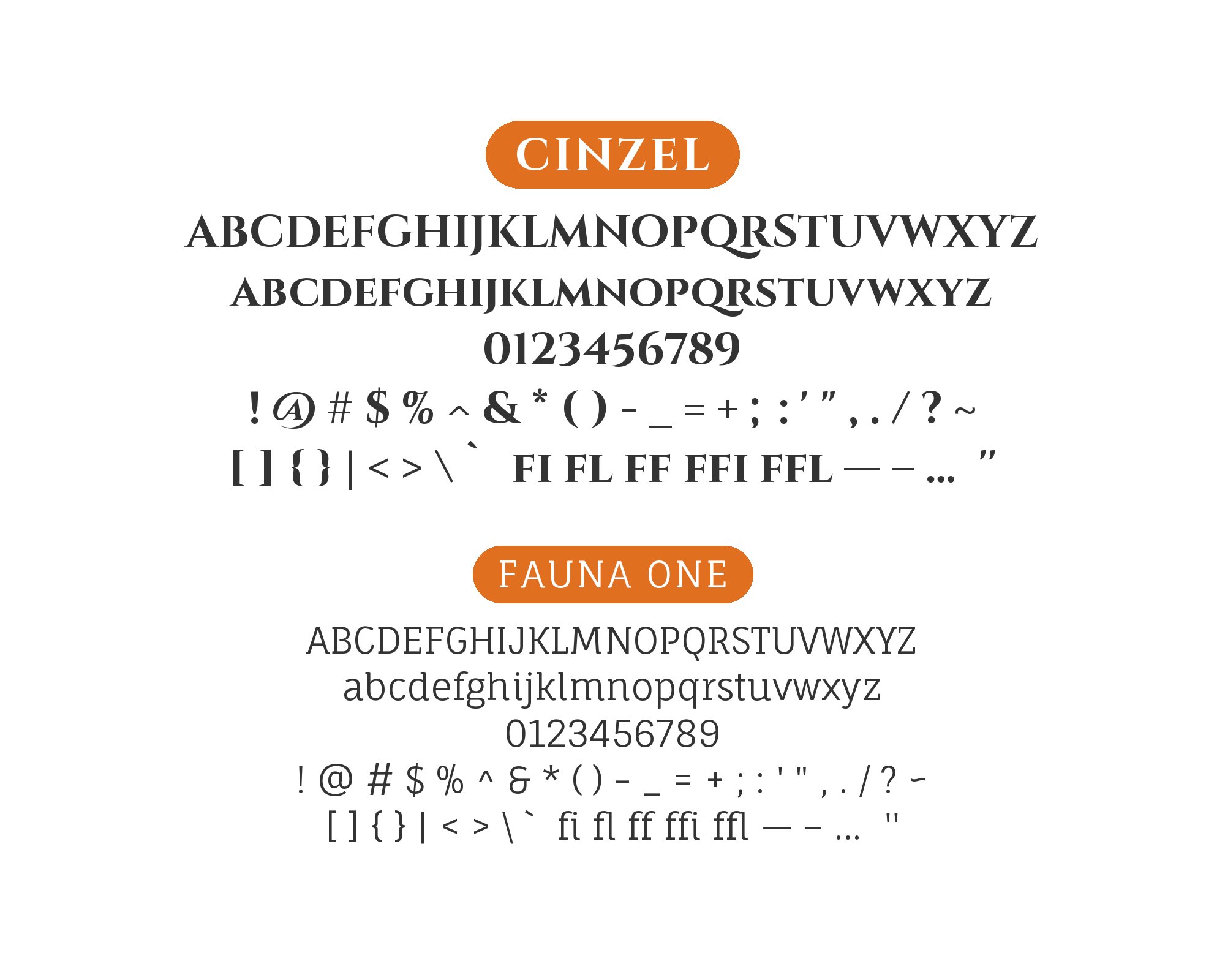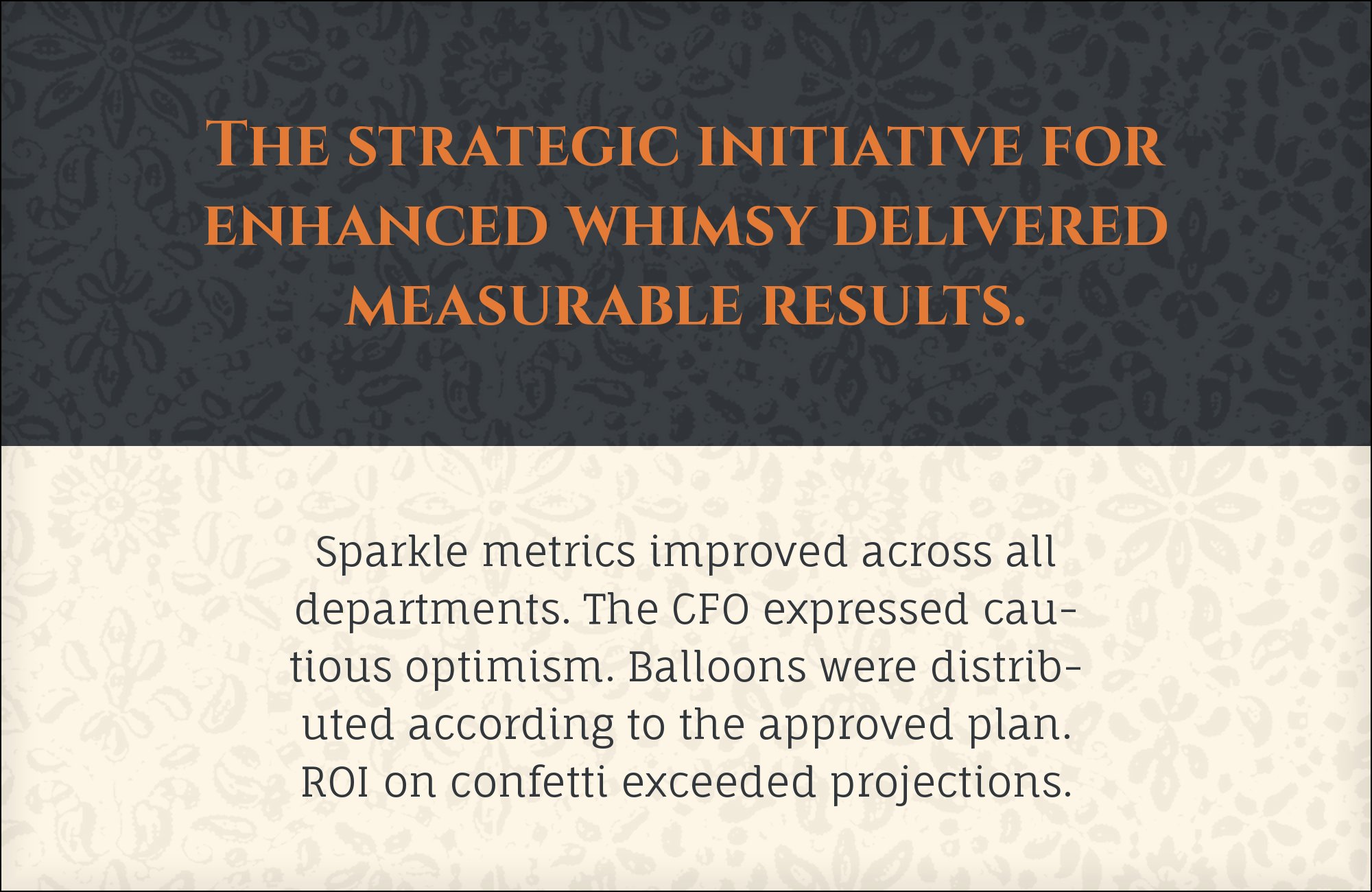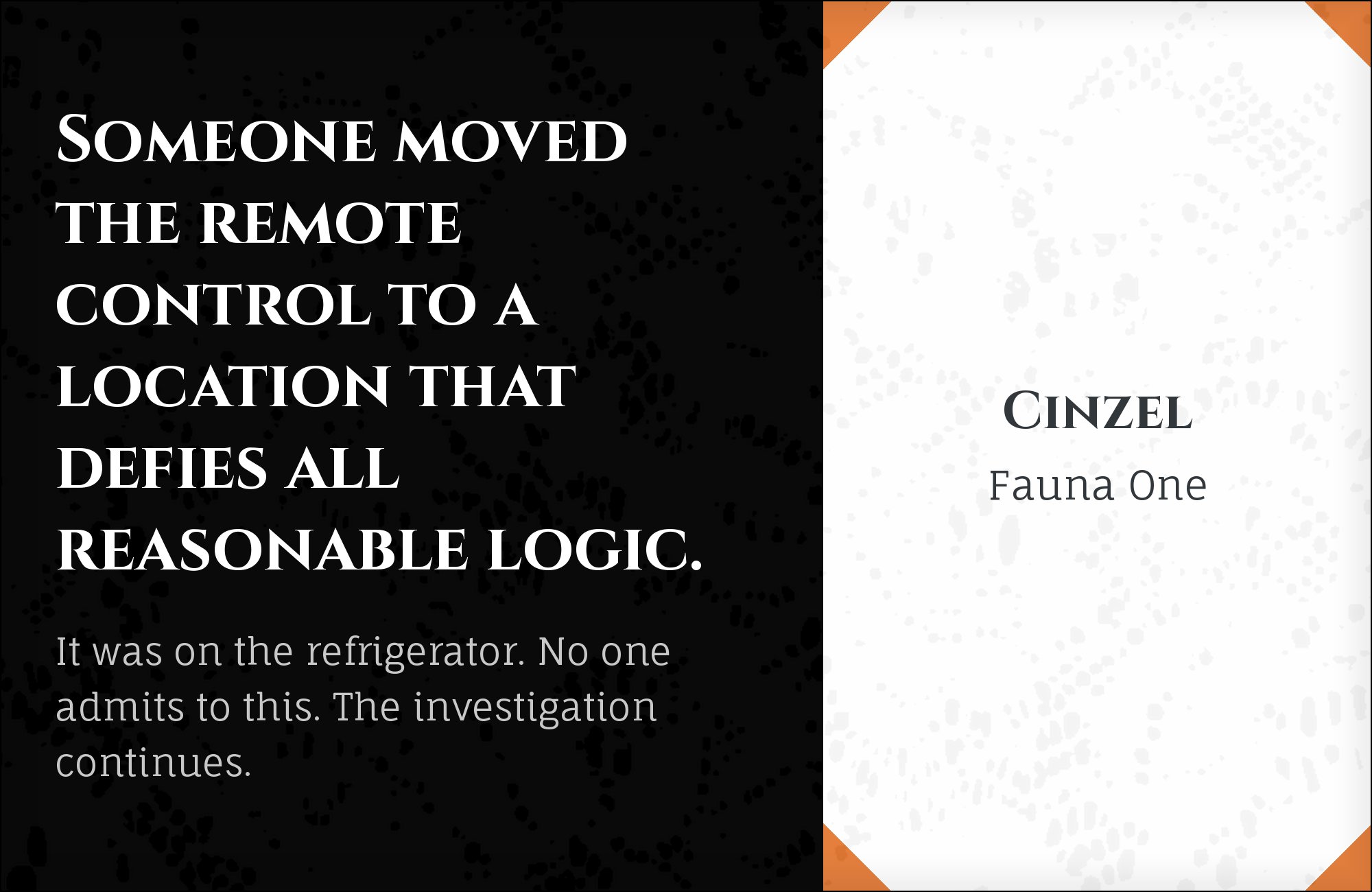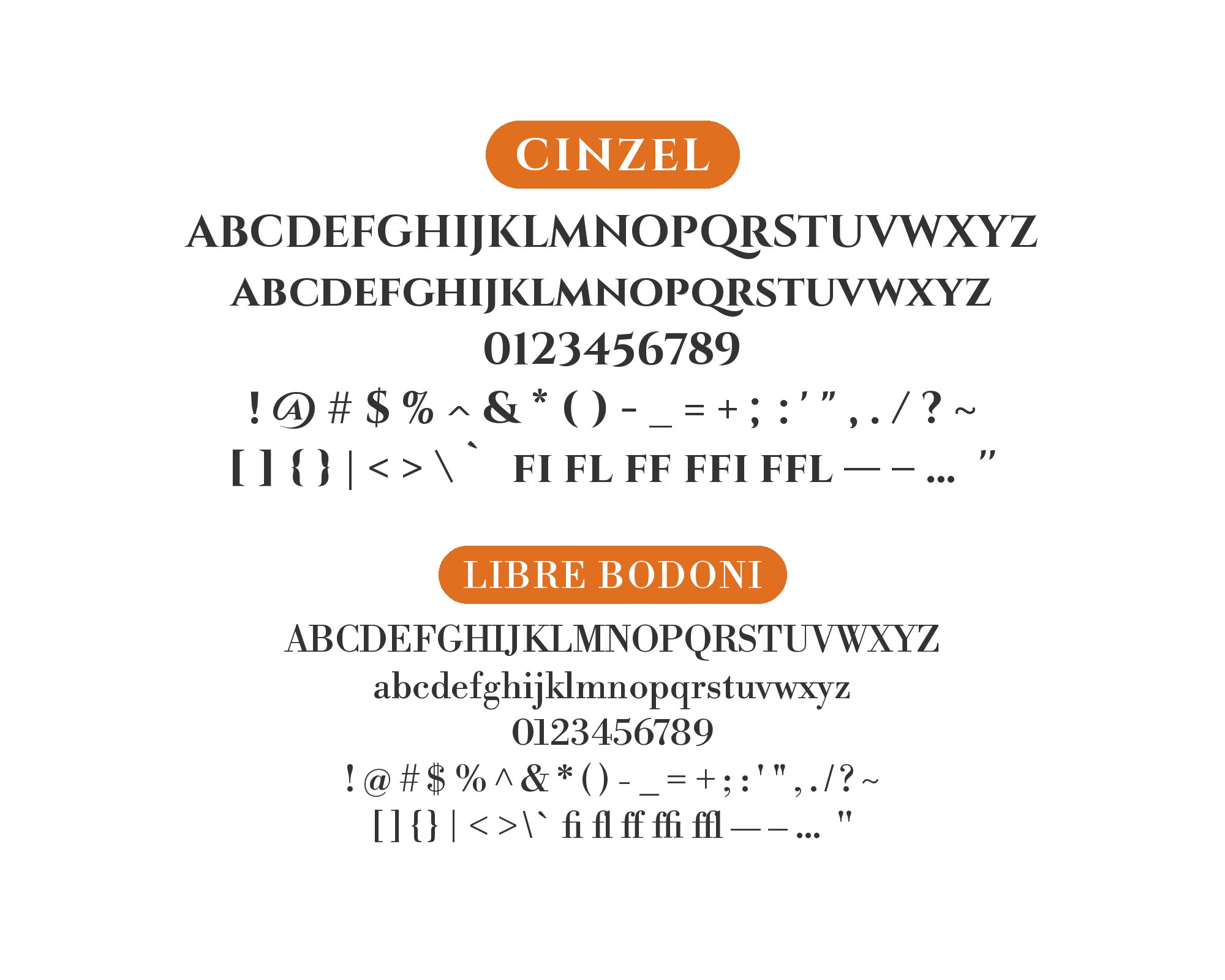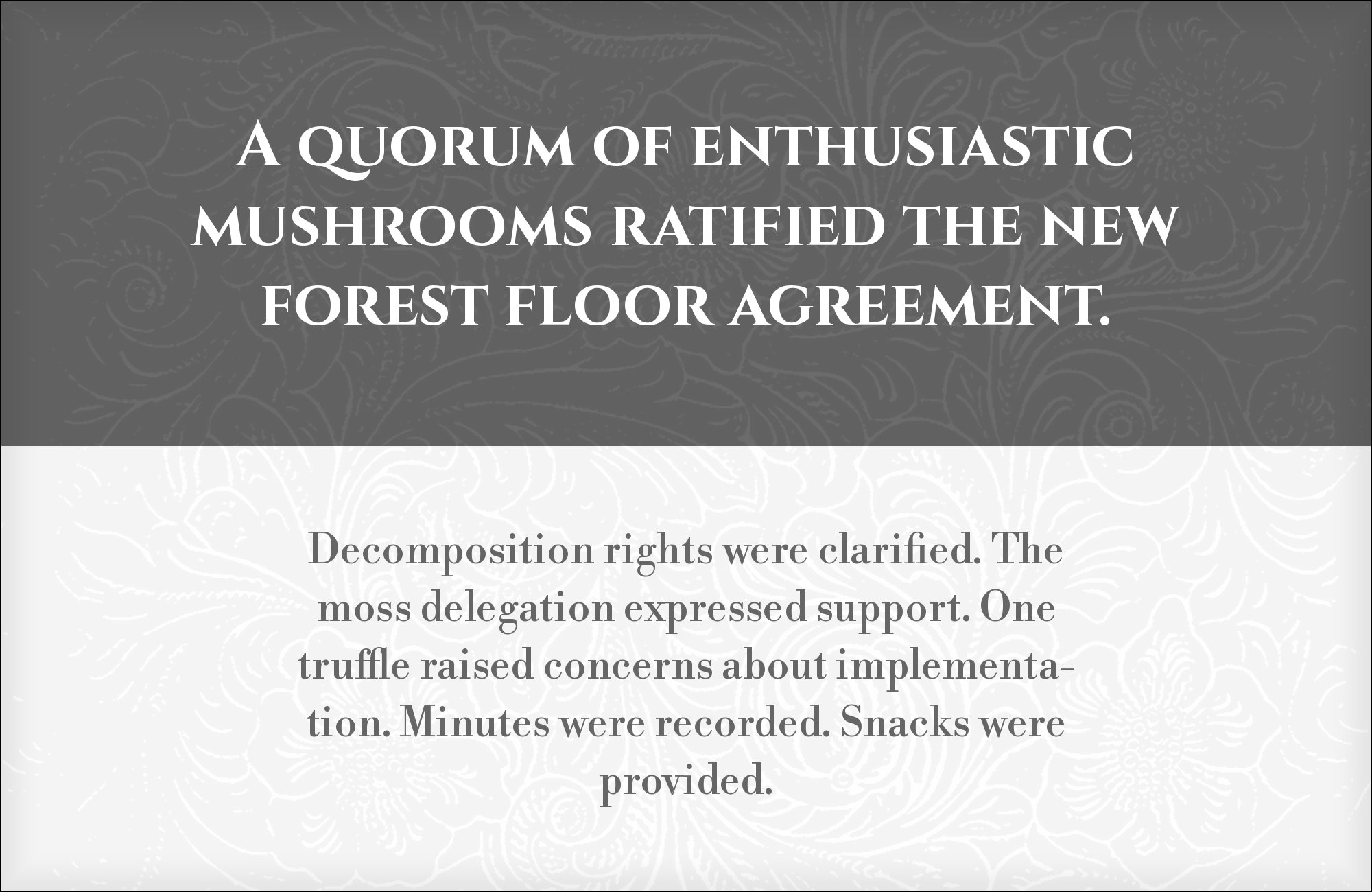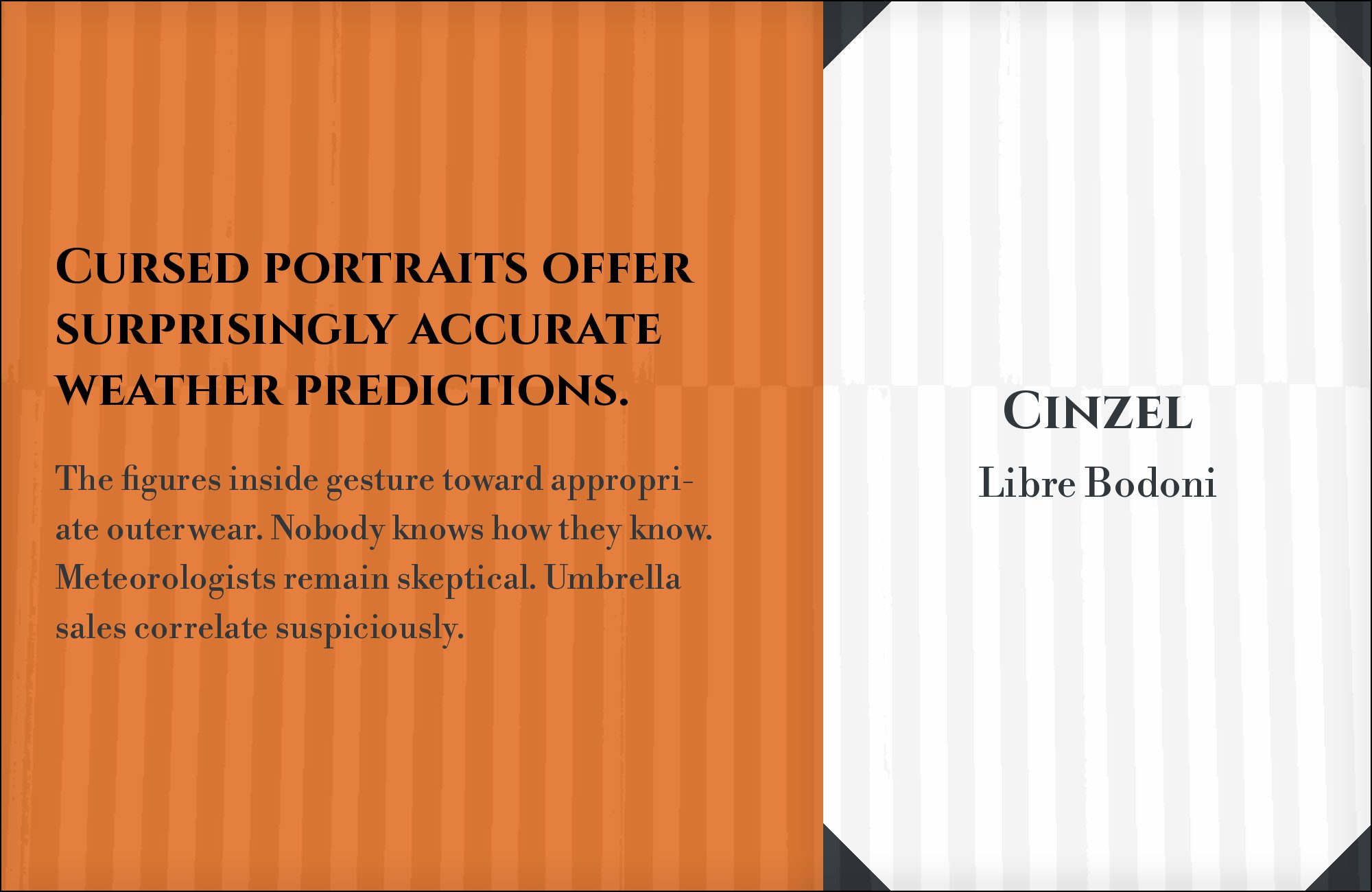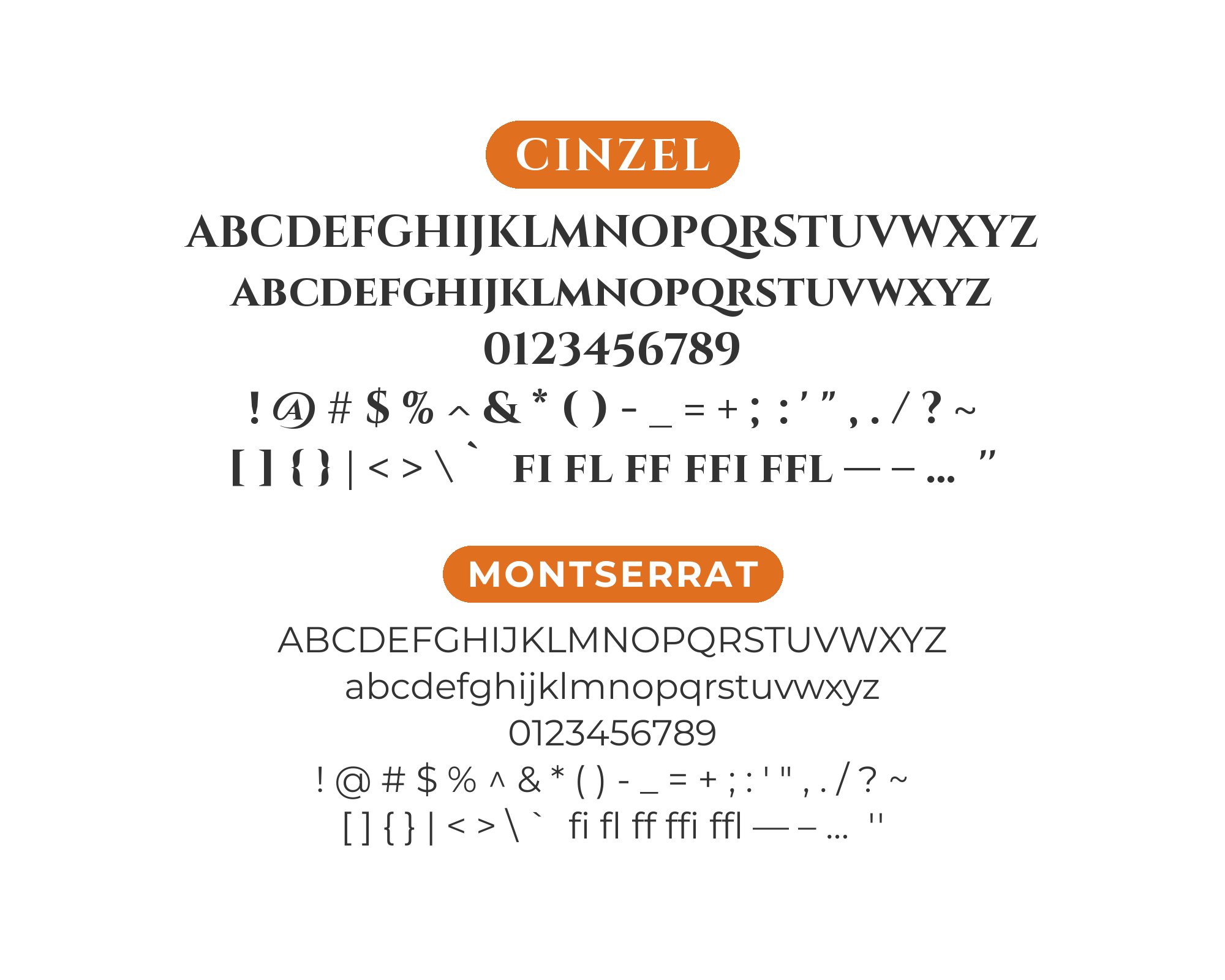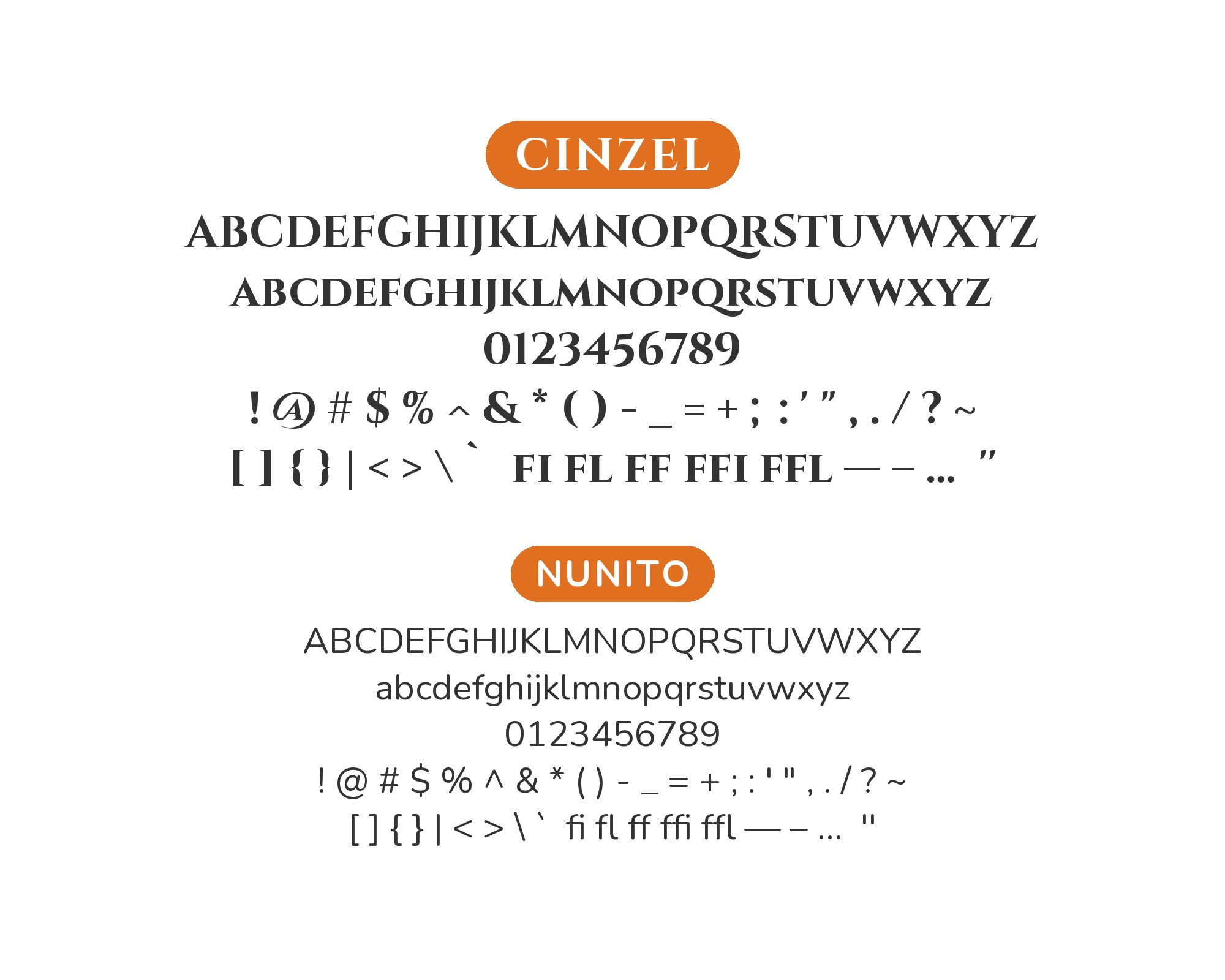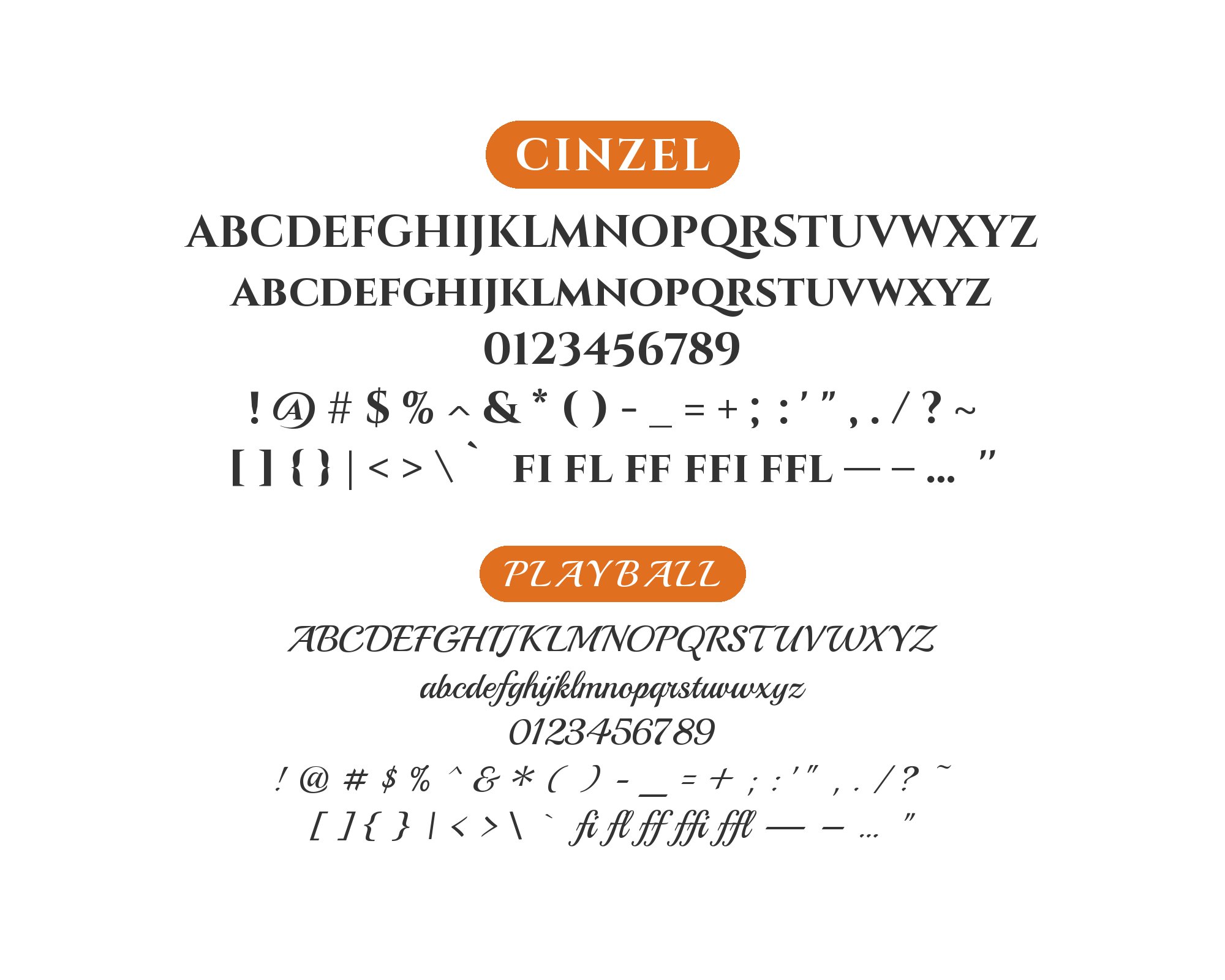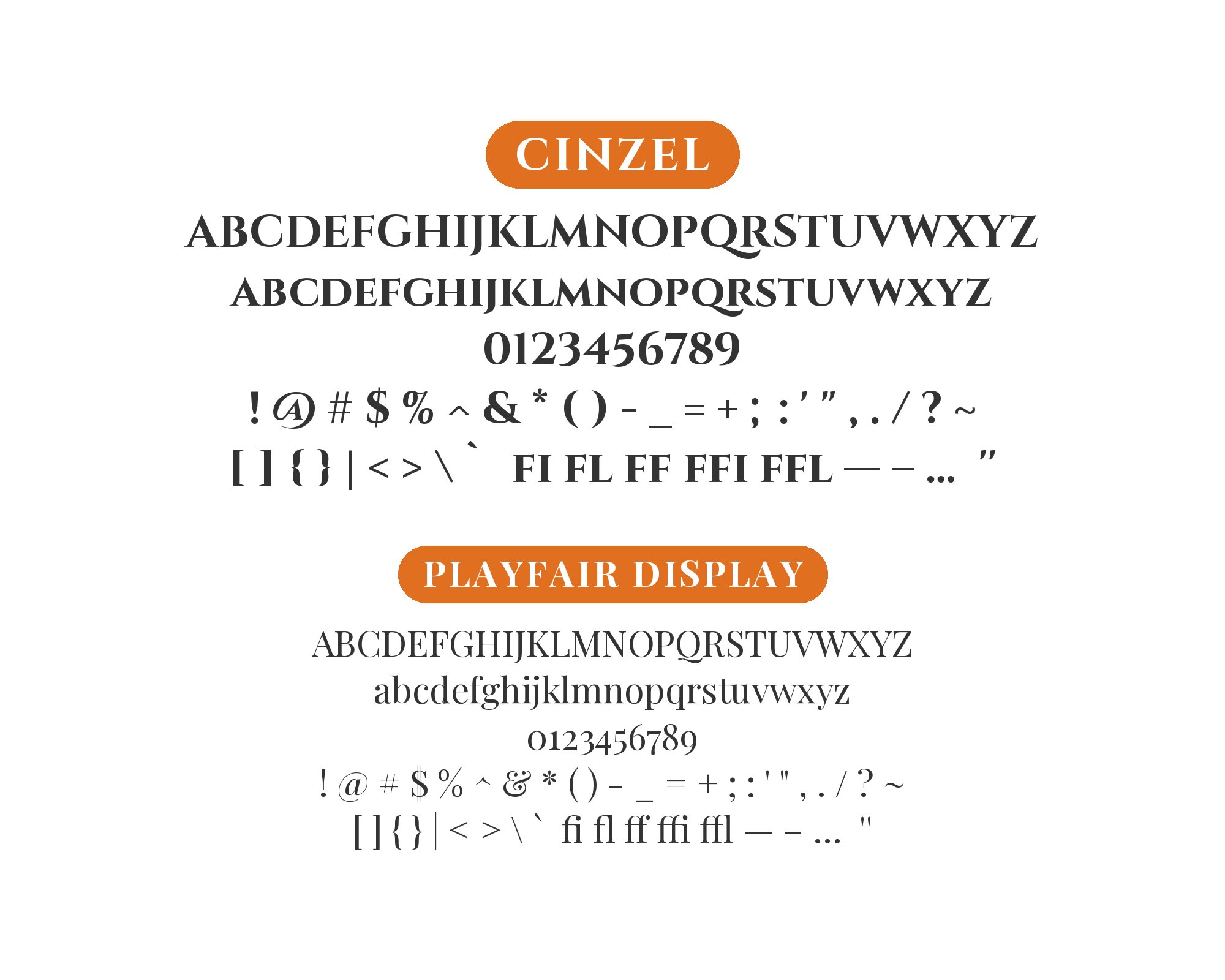
Cinzel pairs great with Fauna One, Montserrat and Raleway. All 8 pairings are shown below in real rendered specimens, with the reason each one works.
What fonts go with Cinzel? Natanael Gama’s free typeface inspired by first-century Roman inscriptional capitals is built almost entirely for uppercase use — wide, evenly proportioned letterforms chiselled rather than penned, drawn to be carved into stone rather than read in a paragraph.
Cinzel is an all-caps face, and it is not built for running text. Its true identity lives in the capitals: monumental proportions, geometric regularity, and serifs that read as engraved rather than written. That makes Cinzel a display and title face exclusively — names, headings, monograms, short ceremonial lines — never a font you set a paragraph in. Almost every source on record for this typeface recommends something else to carry the body text underneath it.
Which means the real question behind “what fonts go with Cinzel” is not decoration, it is structure: what will actually hold the reading copy a caps-only inscriptional face cannot hold itself. The strongest answers are calm serifs and humanist sans-serifs with full lowercase and even texture at small sizes — fonts that let Cinzel’s carved capitals stay the page’s one monumental gesture. Weddings, luxury goods, heritage brands and certificates are its natural territory, and the partner chosen below determines whether that territory feels formal, warm, or theatrical. Here are 8 fonts that pair well with Cinzel.
1. Fauna One
Fauna One, a 2013 Google Fonts serif by Eduardo Tunni with low-contrast strokes and soft terminals, is slightly condensed, with warm rounded curves that stay calm at paragraph size — and because it is a serif rather than a sans, the page never has to make the harder visual jump from carved capitals to a completely different letter construction underneath. It is, by a wide margin, the most consistently recommended Cinzel partner across independent design sources, which says something about how well the temperaments match: both faces carry a literary, slightly formal register without competing for the same attention. Use Fauna One for all running text and reserve Cinzel strictly for titles, names and short ceremonial headings above it.
Let's Talk2. Montserrat
Montserrat is a geometric sans with a full lowercase alphabet and even texture that stays legible at small sizes — everything Cinzel’s inscriptional capitals cannot offer on their own. Set beneath a Cinzel headline, it functions as the quiet workhorse under a loud, monumental logotype: dependable for body copy, captions and interface text without competing for the reader’s attention. The contrast between carved capitals and a plain contemporary sans also reads as intentional rather than accidental, since the two are doing such clearly different jobs. Suited to branding, certificates and any layout where Cinzel appears only as a title or wordmark.
3. Raleway
Raleway’s thin default weights and open counters match Cinzel’s formality without adding drama or ornament of their own, so headline and body share a mood — refined and unhurried — instead of clashing in texture. Because Raleway stays even and legible at paragraph sizes, it can carry substantial body copy beneath a Cinzel title without asking the reader to shift registers. The pairing suits luxury branding, boutique hospitality and invitation design, where restraint matters as much as elegance. Keep Raleway light in weight so it continues to feel like a quieter echo of Cinzel’s formality rather than a competing voice.
4. Nunito
Nunito’s rounded terminals soften Cinzel’s carved, monumental capitals, pulling the combination away from strict classical severity toward something warmer and more approachable. Where a geometric or humanist sans keeps the pairing formal, Nunito’s roundness suggests “heritage with charm” rather than pure antiquity — useful for brands that want Cinzel’s gravitas without its coldness. At body sizes it stays comfortable and legible, doing the reading work Cinzel’s capitals cannot. Boutique retail, artisanal food packaging and lifestyle branding suit this warmer register better than the strictly ceremonial contexts Cinzel more often appears in.
Talk to Douglas5. Playfair Display
This pairing puts two display serifs to work at different scales rather than splitting into a head-and-body relationship. Playfair Display’s sharp, high-contrast transitional forms anchor the largest headline on the page, while Cinzel takes a secondary treatment — a monogram, a subhead, a short lockup — instead of competing at the same size. Both faces carry classical drama, but they arrive at it differently: Playfair Display through crisp vertical stress, Cinzel through carved, evenly-weighted capitals. This combination belongs in luxury editorial and invitation design, where a single serif voice would leave the page feeling underdressed.
6. Quattrocento
Quattrocento is a sturdy, low-contrast serif with a generous x-height that keeps body text legible at small sizes, with enough visual weight to hold its own beneath a Cinzel headline without trying to match its drama. Where a lighter or more delicate serif can look thin and apologetic under Cinzel’s carved capitals, Quattrocento’s density gives the body text real presence, producing a heading-and-body system that feels balanced rather than top-heavy. It suits certificates, formal announcements and print layouts where the body copy needs to read as substantial rather than merely functional. Reserve Cinzel for the title line and let Quattrocento carry everything below it.
7. Libre Bodoni
Libre Bodoni is a modern, high-contrast serif considerably more legible at body sizes than Cinzel’s ornamental capitals, which keeps the display face reserved for names and titles while paragraph text goes to a font actually built for reading. Figma’s wedding font guide pairs Libre Bodoni with the Cinzel Decorative cut for luxurious, grand and classic weddings: the name or date goes at the top, and Libre Bodoni carries the details underneath. The two share enough classical serif character to feel related without either one trying to do the other’s job. Certificates, formal stationery and ceremonial print pieces are its strongest use case.
Test the combination at the actual sizes and lengths you intend to publish. Cinzel’s capitals were never meant to carry a sentence, and a pairing that looks resolved in a title-card specimen can still fall apart the moment real paragraph copy has to sit beneath it.